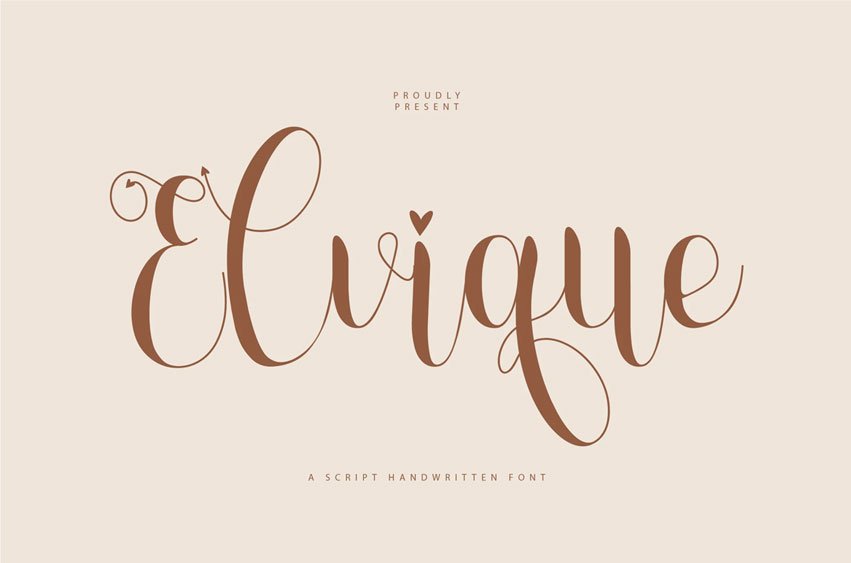
Elvique Font is an elegant and sophisticated script font that combines flowing curves with a refined, modern feel. It exudes a sense of grace and artistry, making it ideal for projects that require a touch of sophistication, such as branding, invitations, or luxury design.
The font features smooth, interconnected letterforms that create a fluid, handwritten aesthetic, while maintaining legibility. Its organic yet polished style makes Holewi versatile enough for both formal and creative uses, adding a unique, personal touch to any design.